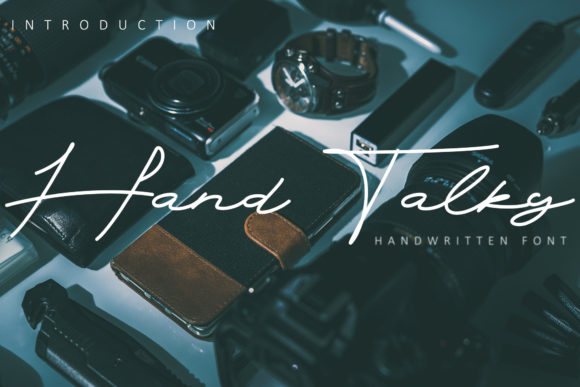
Embrace the allure of Hand Talky, a script font family that will ignite your creative spirit. Meticulously crafted by Coretanletter, this font exudes elegance and fluidity, promising to elevate your designs to new heights. Hand Talky's captivating charm lies in its timeless style, a harmonious blend of sophistication and playfulness. Let its graceful strokes dance across your screens, effortlessly conveying emotions and capturing hearts.
Immerse yourself in the world of Hand Talky and discover a font that is both visually stunning and highly functional. As a script font, it possesses an inherent charm that adds a touch of personality to any project. Whether you're crafting logos, designing websites, or creating social media graphics, Hand Talky seamlessly adapts to meet your creative vision. Its versatility knows no bounds, making it the perfect choice for a diverse range of projects.
Indulge in the beauty of Hand Talky's meticulously crafted glyphs, each one lovingly designed to ensure clarity and readability. Experience the joy of using a font that respects the art of typography, ensuring that your messages are conveyed with precision and impact. Whether you're creating content for print or digital media, Hand Talky guarantees a seamless reading experience for your audience.
With Hand Talky, you unlock a world of creative possibilities. Its captivating allure transforms ordinary words into works of art, effortlessly enhancing the impact of your designs. Unleash your imagination and let Hand Talky guide you on a journey of creative expression. Dare to be different, to stand out from the crowd, and to leave a lasting impression on your audience.